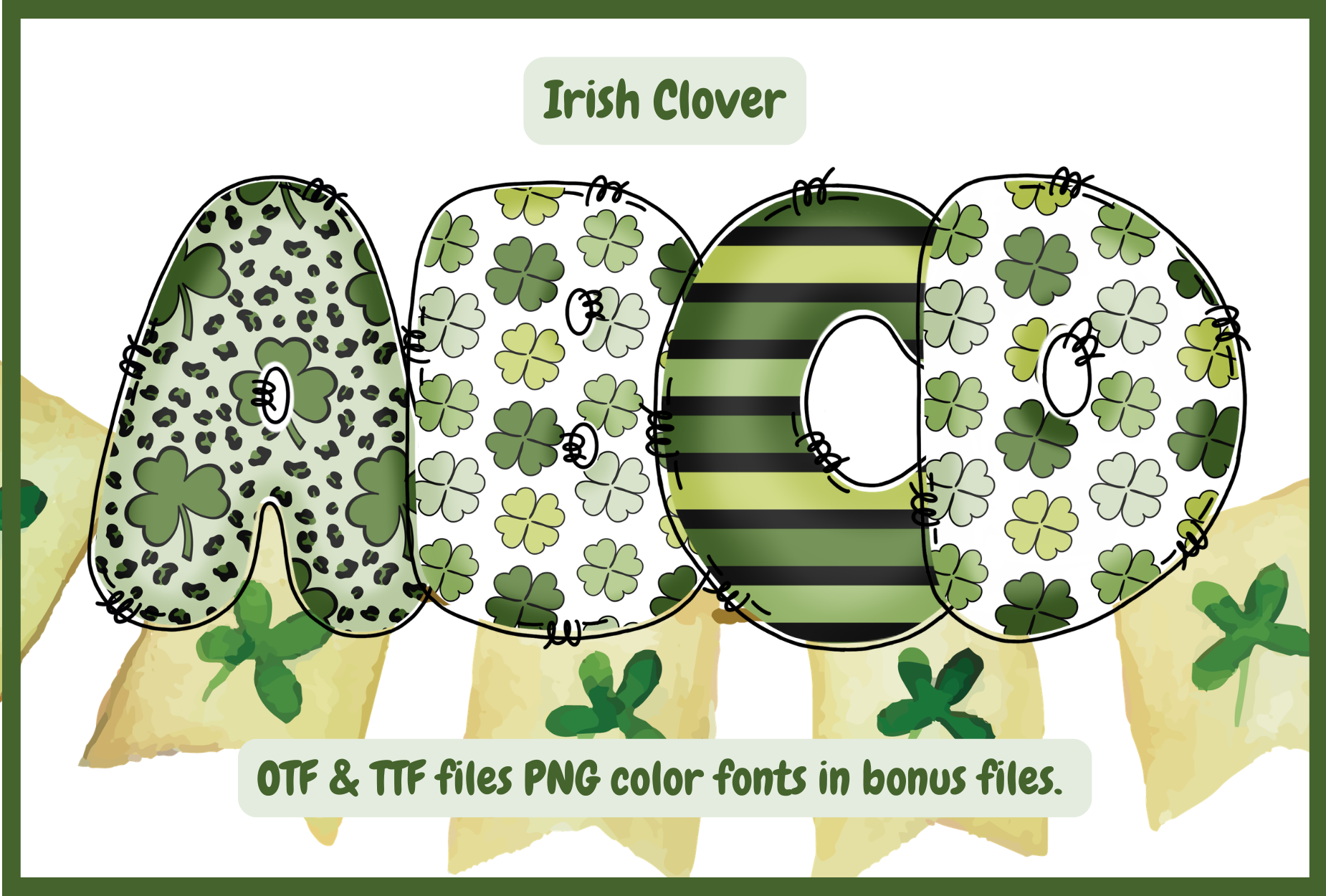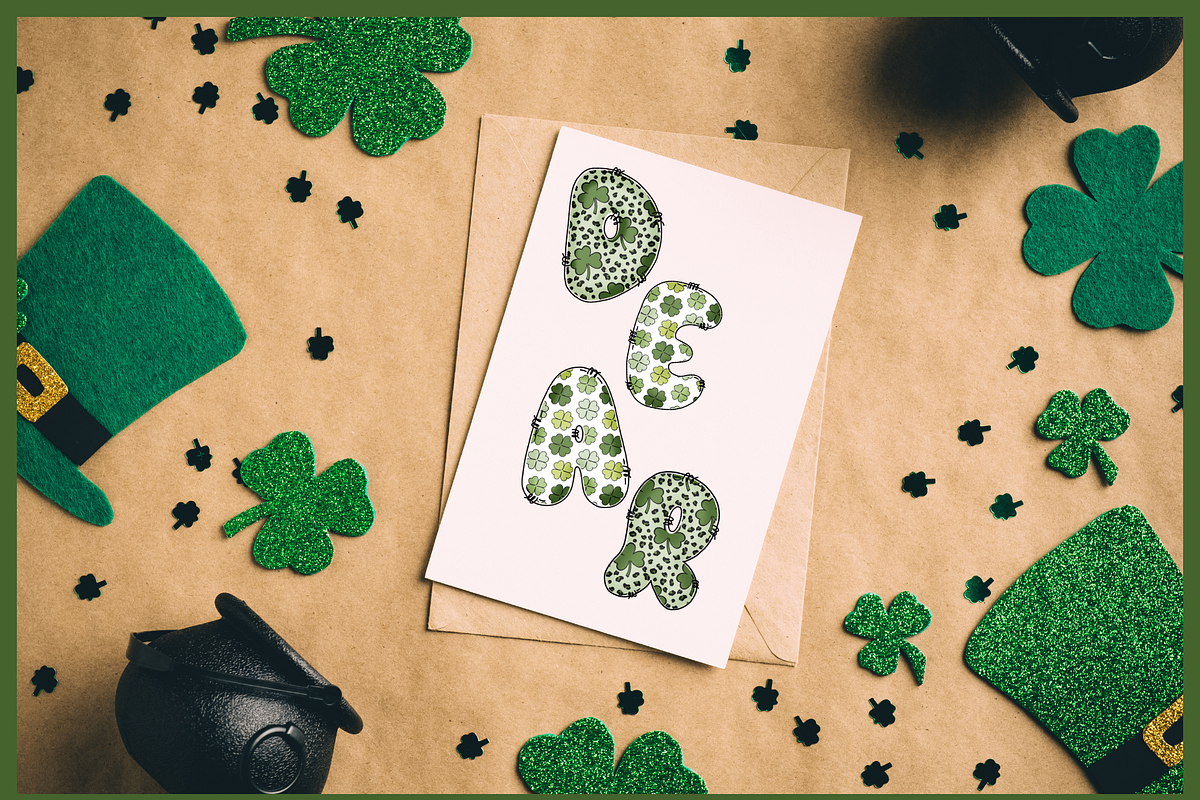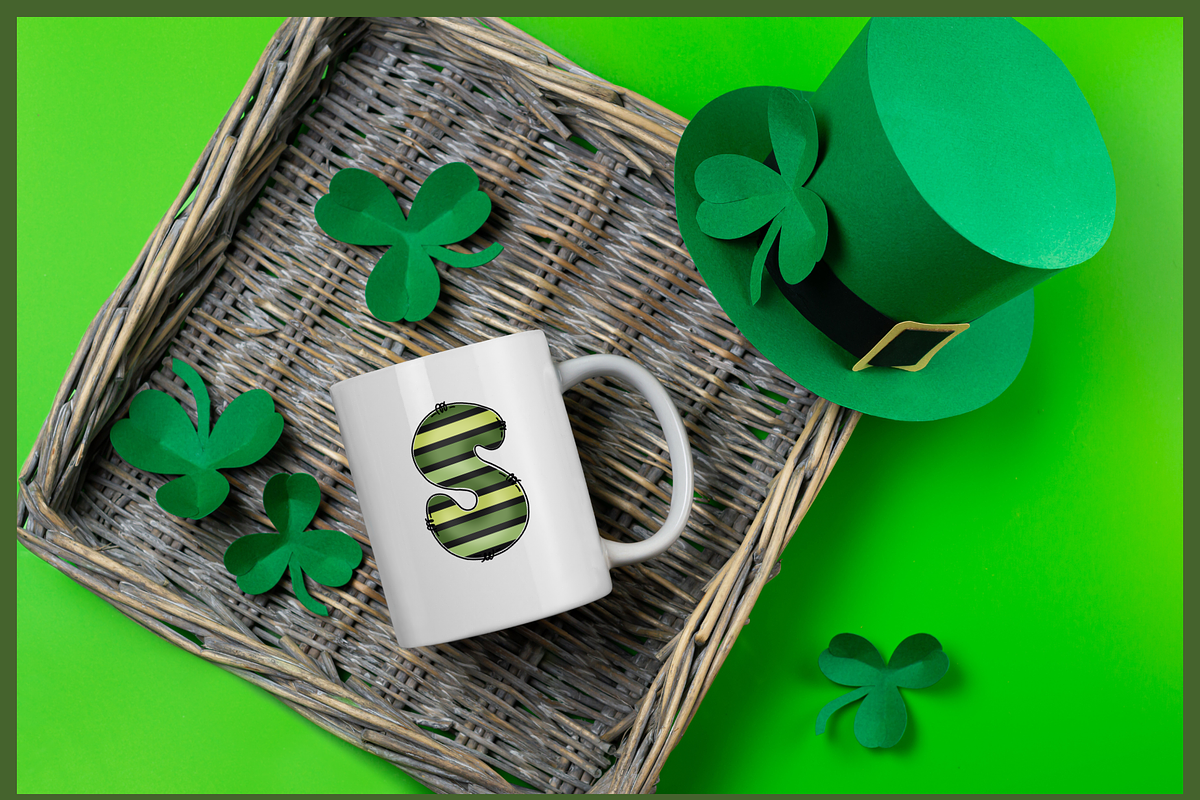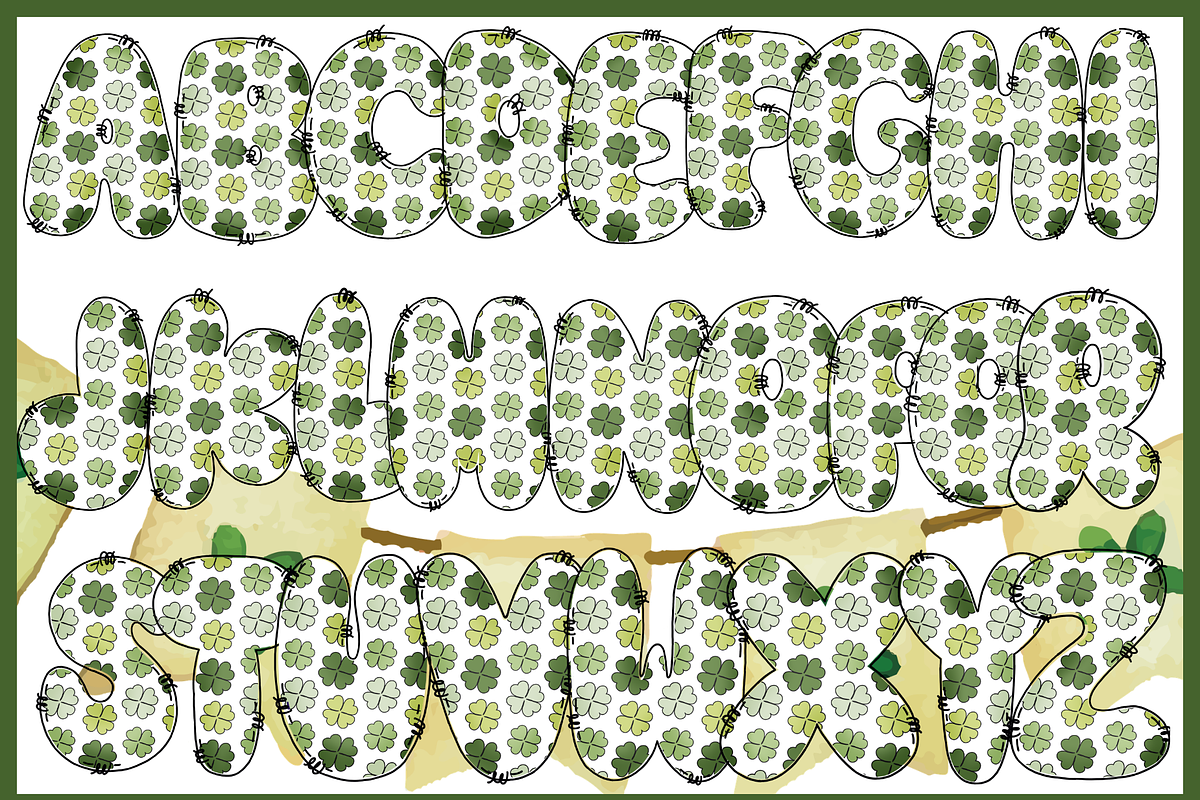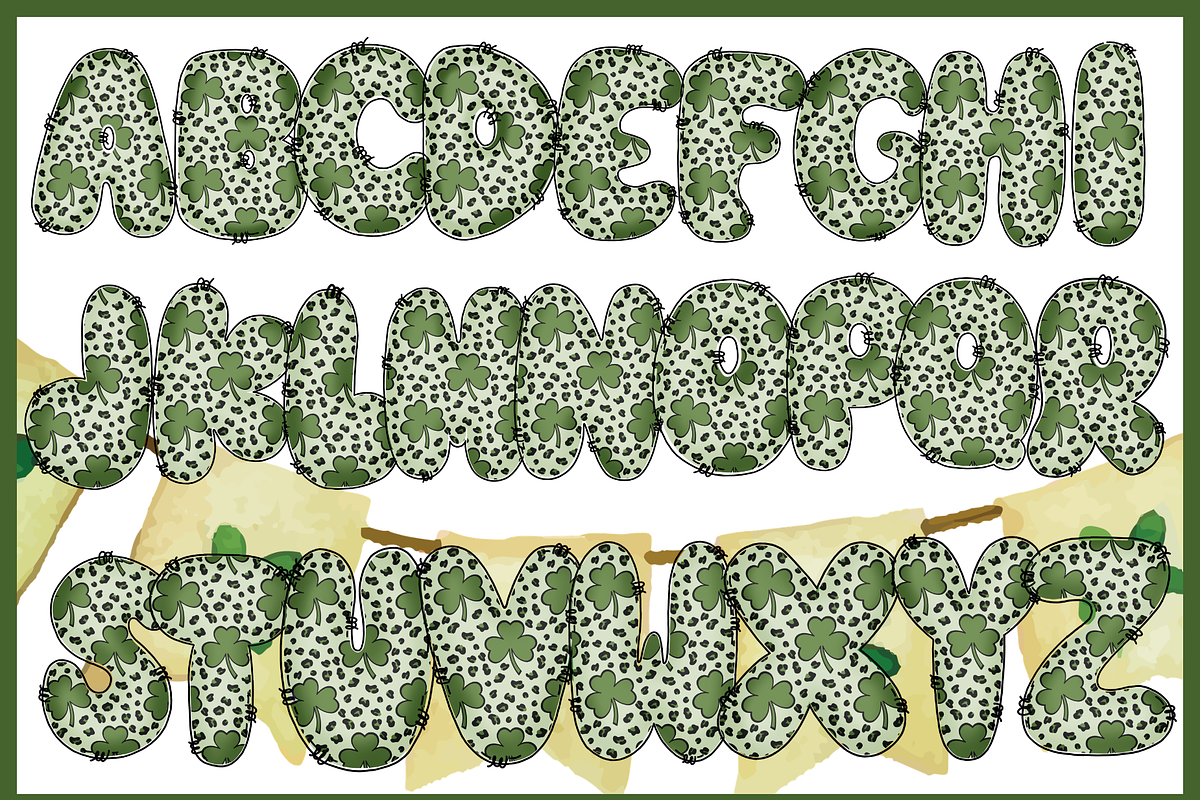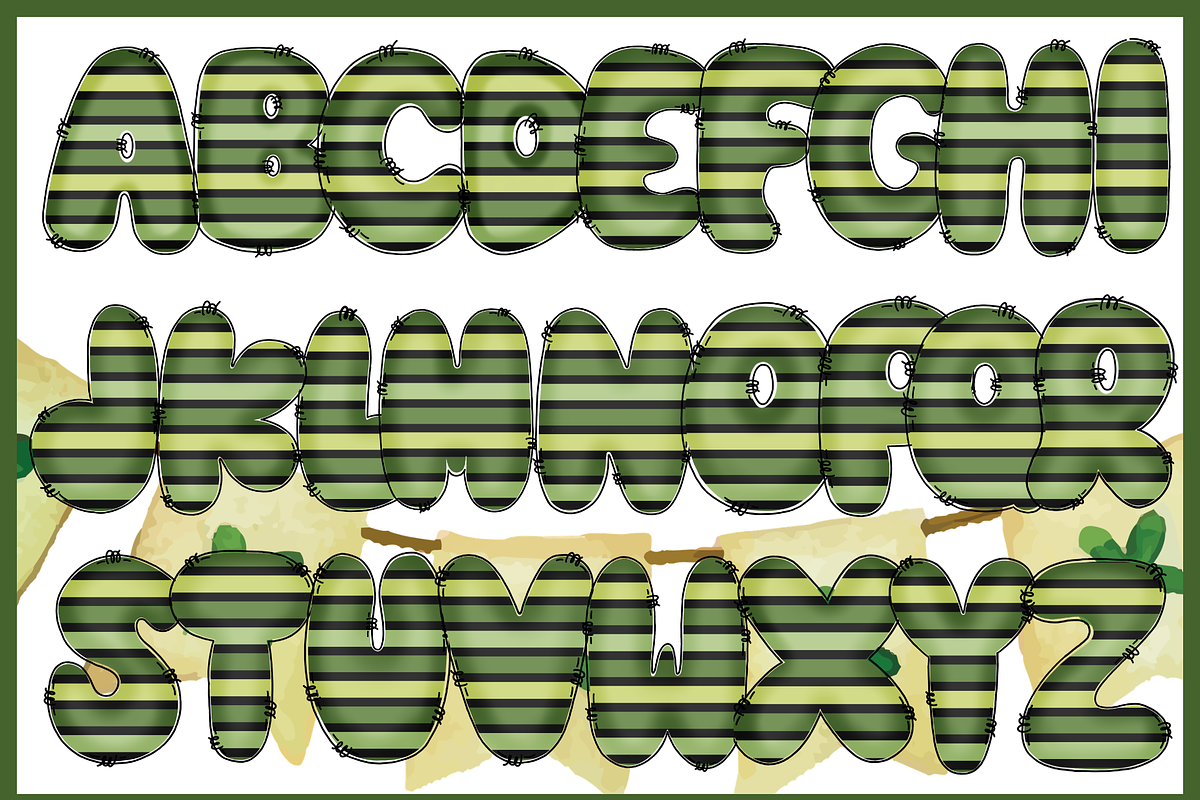
IrishClover-PNG fonts
IrishClover Green Chrome & Jelly Style: A unique blend of futuristic cyberpunk and festive fun.
Perfect for St. Paddy’s Projects: Sublimation: T-shirts, mugs, and tote bags for the parade.
Digital Crafting: Stickers, planners, and scrapbook layouts.
Marketing: St. Patrick's Day sale banners and social media headers.
Decor: Party posters, flyers, and signage.